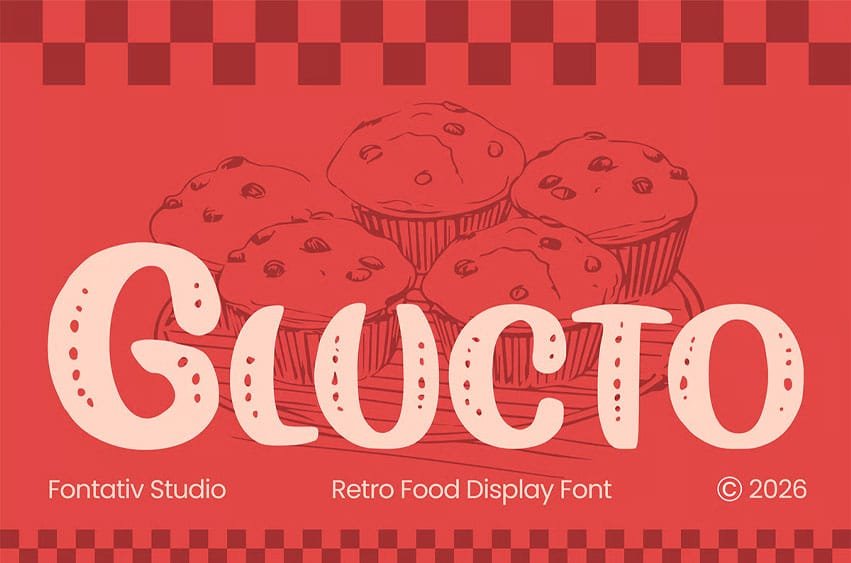
Glucto Font is a retro food display font inspired by classic diners, dessert shops, and nostalgic food packaging. Featuring chunky rounded letterforms with playful vintage charm, it brings a cheerful and appetizing personality to every design while maintaining excellent readability across both print and digital media.
Available in 1 style: Regular, Glucto is ideal for food branding, bakery logos, dessert shops, cafés, ice cream brands, candy packaging, snack packaging, restaurant branding, menu designs, product labels, posters, social media graphics, website headers, promotional materials, invitations, and retro-inspired branding. It also includes multilingual support, making it suitable for creative projects worldwide.